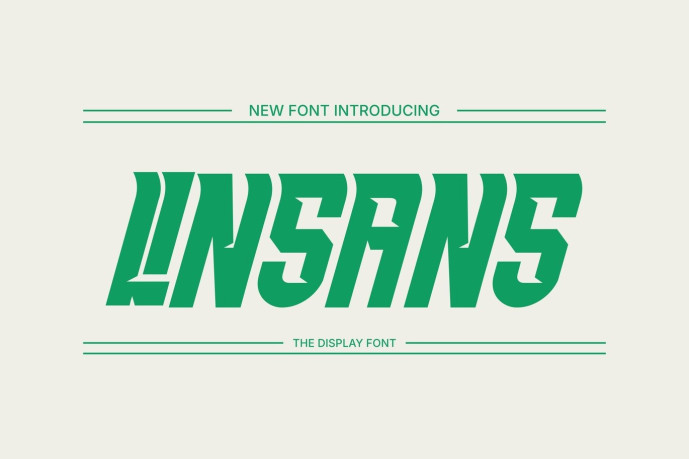
Linsans_Font
Designer: Ahmad Baqi Firdaus
Linsans_Fontt
Carefully crafted with attention to detail, this typeface combines contemporary style with excellent readability, making it suitable for both personal and commercial projects. Whether you’re building a strong brand identity or creating eye-catching promotional content, this font helps your designs stand out effortlessly.
Uppercase
Ligature
for all uppercase ligatures